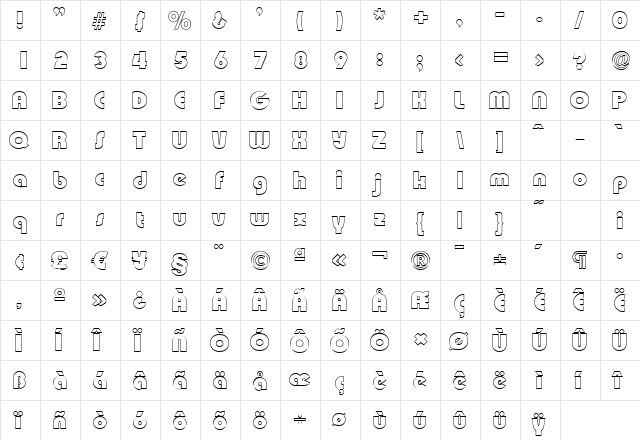
BrianBeckerOutline-Heavy Normal Font Preview
BrianBeckerOutline-Heavy Normal
BrianBeckerOutline-Heavy Normal Font Details
Design Context for BrianBeckerOutline-Heavy Typeface
BrianBeckerOutline-Heavy brings ornamental detail and strong personality to headlines and identities, where visual impact matters more than quiet functionality.
Font Pairing: Pair with a clean neutral sans-serif for body copy to let BrianBeckerOutline-Heavy's character lead without overwhelming the composition.
Pro Tip: Use BrianBeckerOutline-Heavy exclusively at display sizes — it was designed to be seen, not read at length. Let a neutral companion handle body copy.